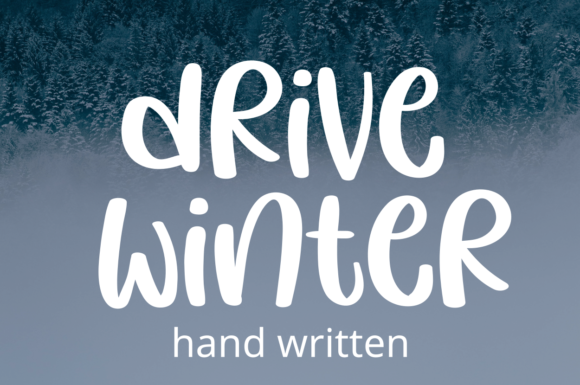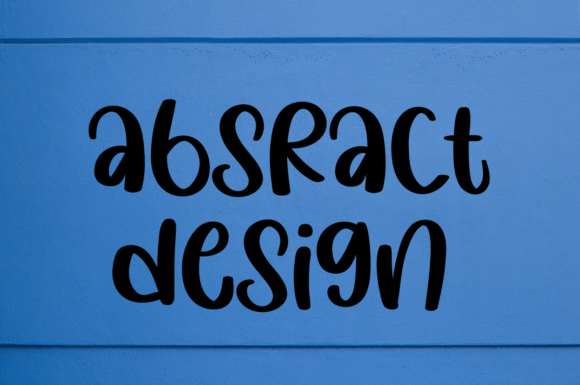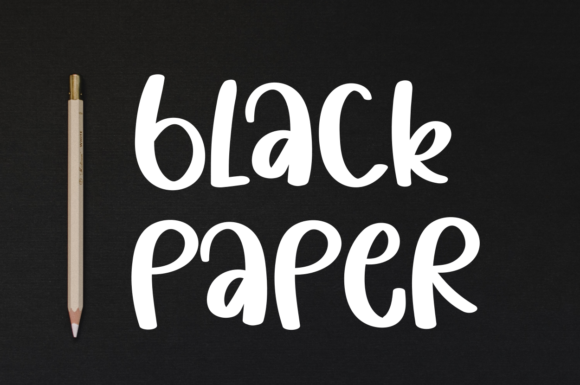
Drive Winter Font
About the Drive Winter Font
Welcome to the world of Drive Winter Font, a typeface that will inspire your next great project. Drive Winter is a fun and trendy handwritten font. This original look will appeal to a wide range of crafty ideas, from letterheads and titles, to stationery.
Drive Winter excels in projects requiring a touch of playful sophistication. It’s ideal for headlines, short text blocks on packaging, and eye-catching titles in branding materials, particularly those related to crafts, fashion, or lifestyle products aimed at a younger demographic. Avoid using it for body text or long paragraphs; its informal nature makes extended reading difficult.
The font’s inherent energy pairs well with clean sans-serif fonts like Lato or Open Sans for a balanced contrast of formality and informality. For a more luxurious feel, consider pairing it with a delicate serif like Playfair Display. Alternatively, a geometric sans-serif such as Montserrat can create a modern and slightly edgy combination.
Drive Winter’s personality is best described as fun yet refined—a balance of trendy and timeless. This makes it suitable for brands that wish to project a youthful, approachable, and stylish image.
Drive Winter Font Usage Examples
Drive Winter Font Example